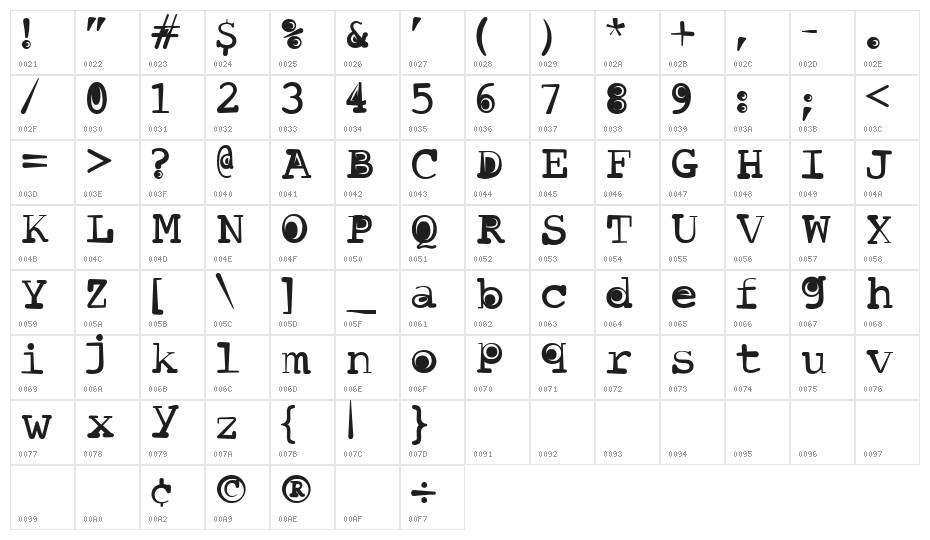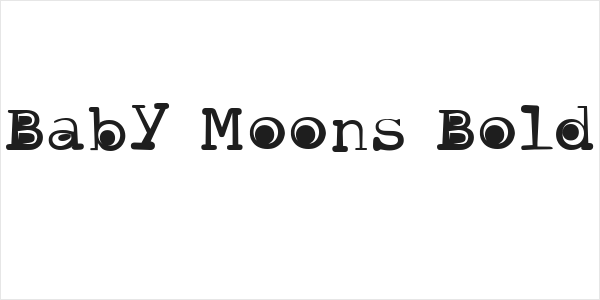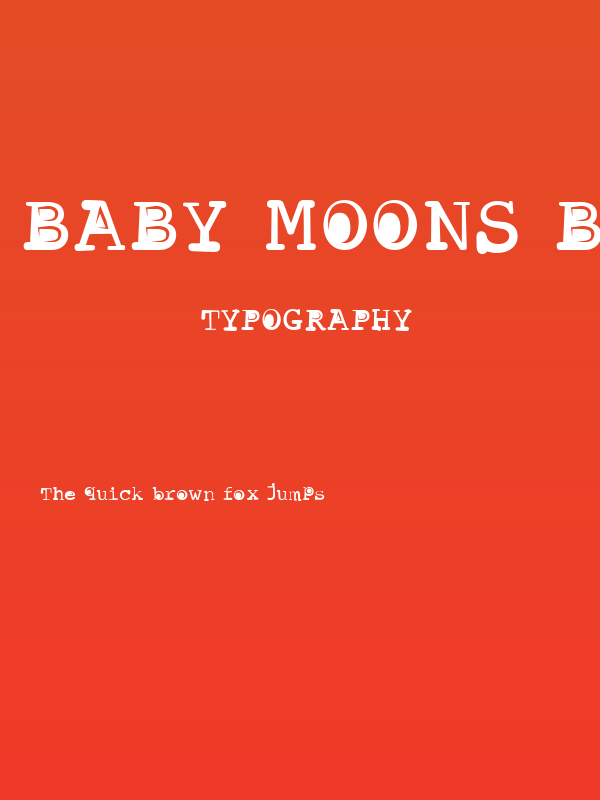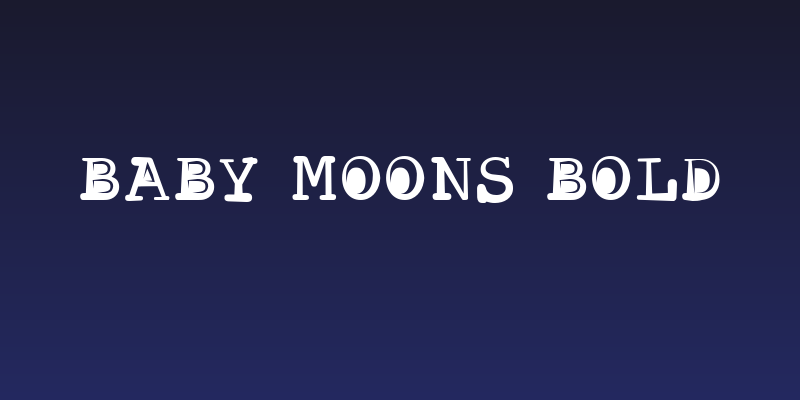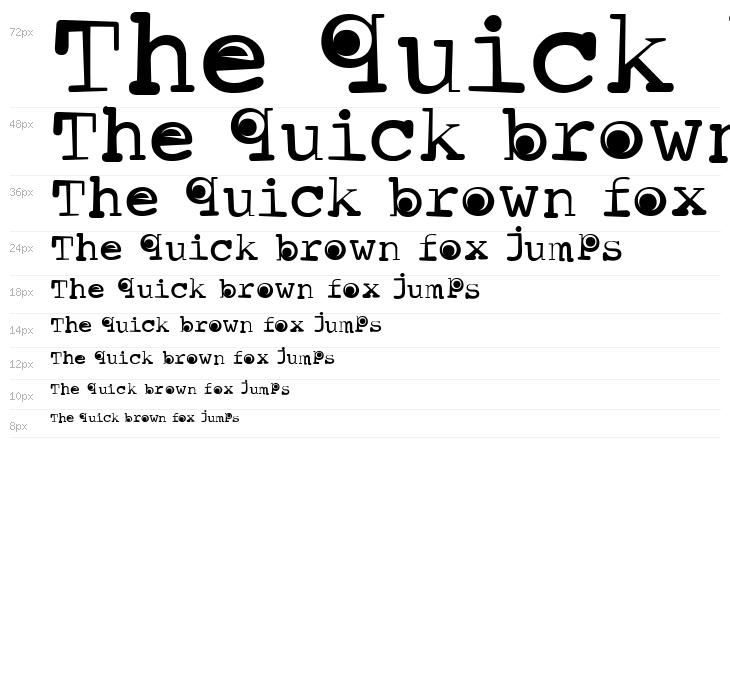
Baby Moons Bold Font
Baby Moons Bold Description
This font exhibits a playful and bold style, characterized by its thick, rounded serifs and a whimsical touch in its design. The uppercase letters are robust and convey a sense of strength, while the lowercase letters maintain a consistent boldness with slight variations that add a unique charm. The numerals are equally bold, ensuring readability and impact. Special characters are creatively designed, maintaining the overall playful theme. This font's distinct style makes it suitable for projects that require a fun and engaging visual appeal.
| Proposed Projects | Ideal for children's books, playful branding, posters, and any design needing a fun, bold typeface. |